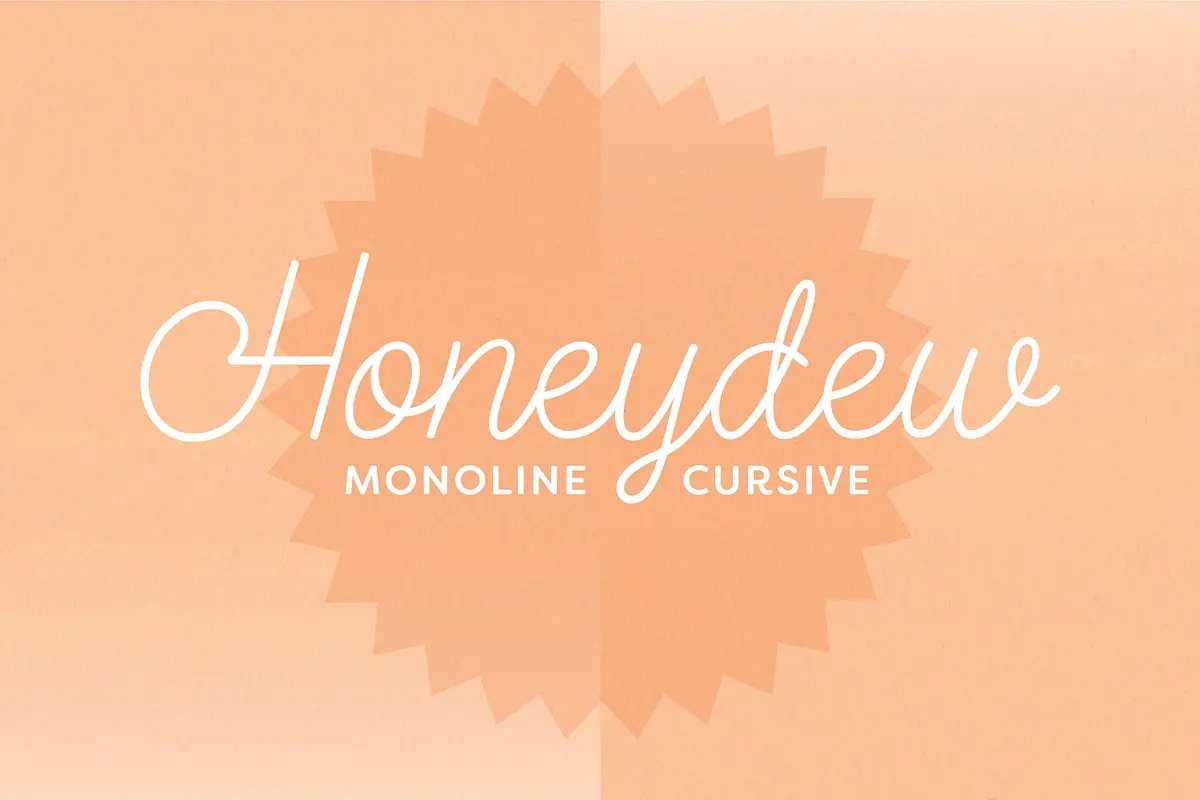
Honeydew Script Calligraphy Font Free Download
Honeydew Script Calligraphy Font Free Download is a sweet and elegant handwritten typeface that radiates warmth and charm. With its flowing strokes, graceful curves, and natural calligraphic style, Honeydew is perfect for wedding invitations, feminine branding, greeting cards, social media posts, and romantic stationery.
Honeydew Script Calligraphy Font Free Download brings a soft, personal touch to your typography, making every word feel heartfelt and refined. Whether you’re crafting a bridal logo or a handwritten quote, this font adds sophistication and emotion. Download it today and let Honeydew sweeten your next design with effortless calligraphic beauty.